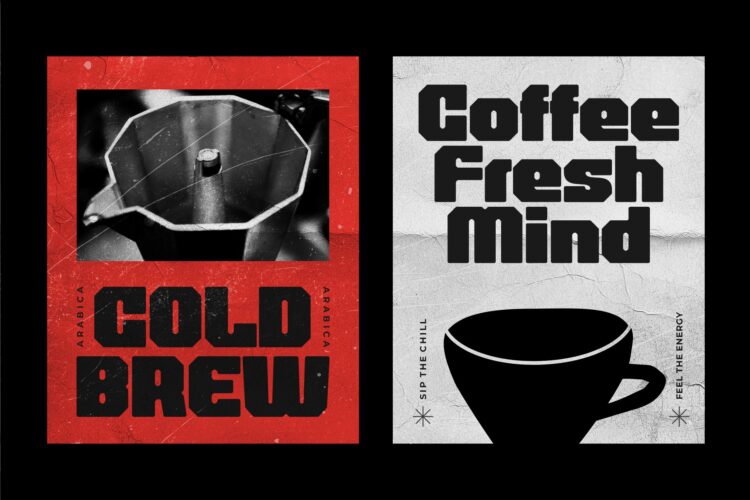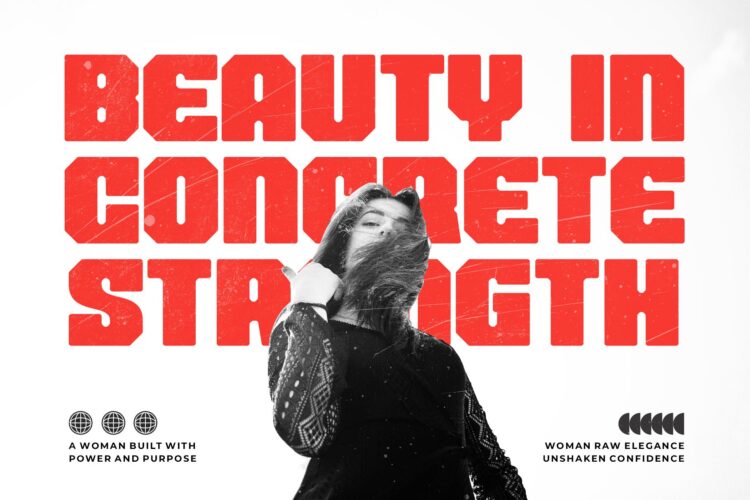
Noeva is a bold, modern sans serif display typeface built for graphic design that needs clarity and impact. Designed exclusively in uppercase and lowercase, each letterform shows careful attention to proportion and detail. The result is a contemporary, assertive voice with geometry and precision that stays legible across a wide range of uses.
Use Noeva when type must do more than inform. It suits titles, branding systems, posters, and projects where text acts as both message and visual anchor. The readable shapes allow creative experimentation while keeping a polished, professional character in layouts for print and digital design.